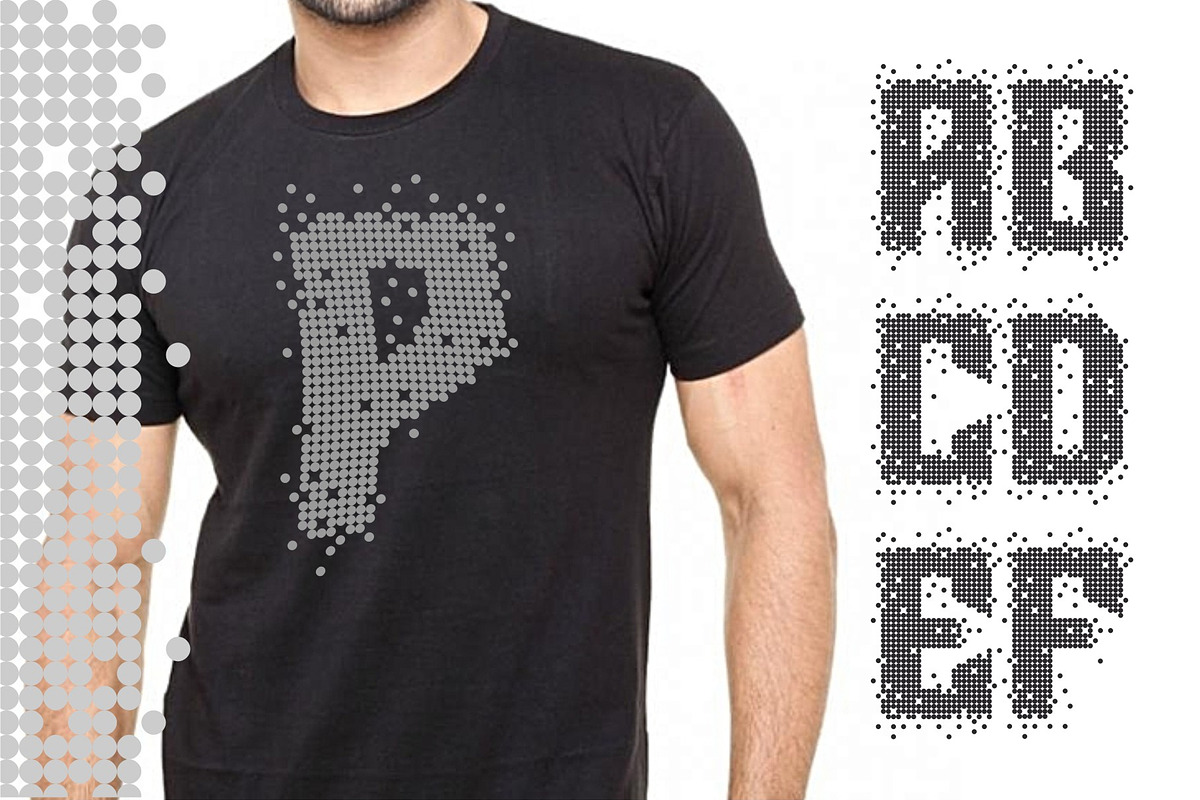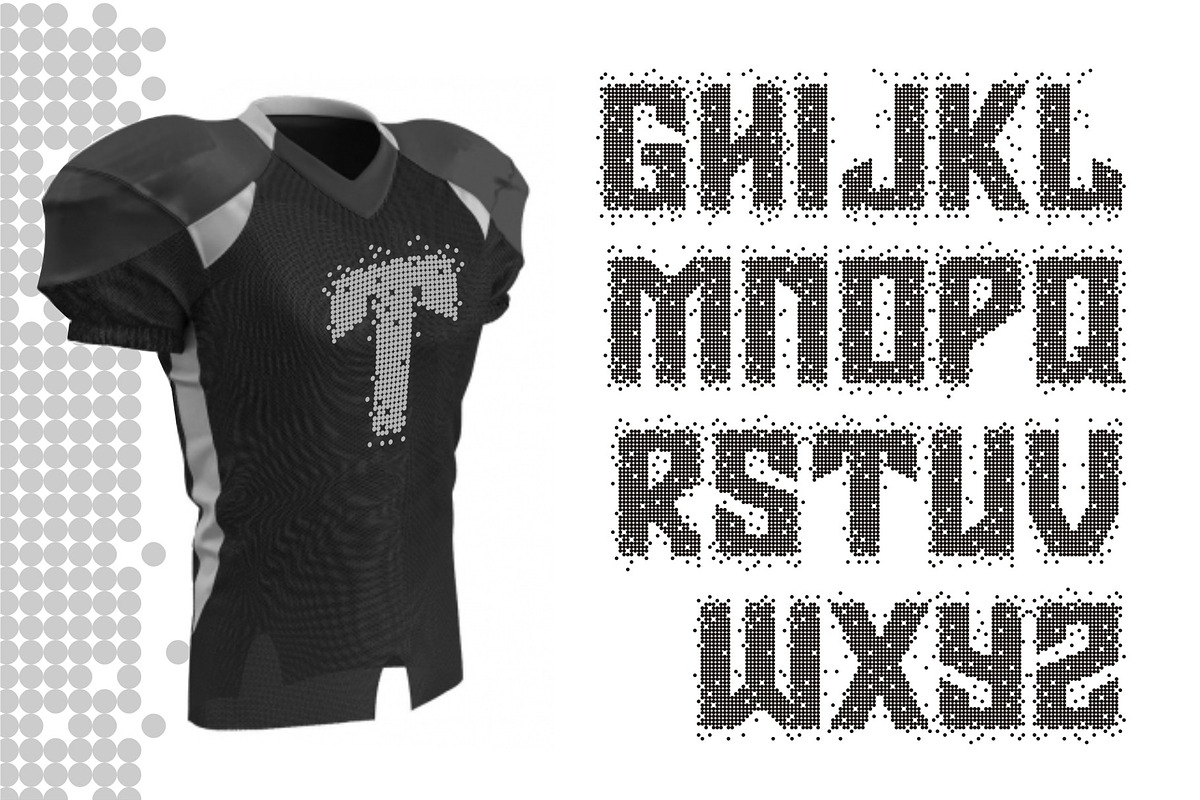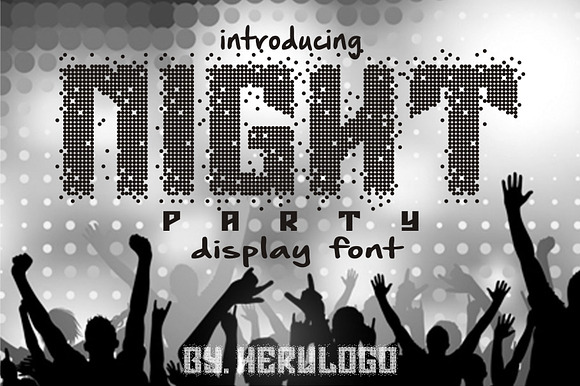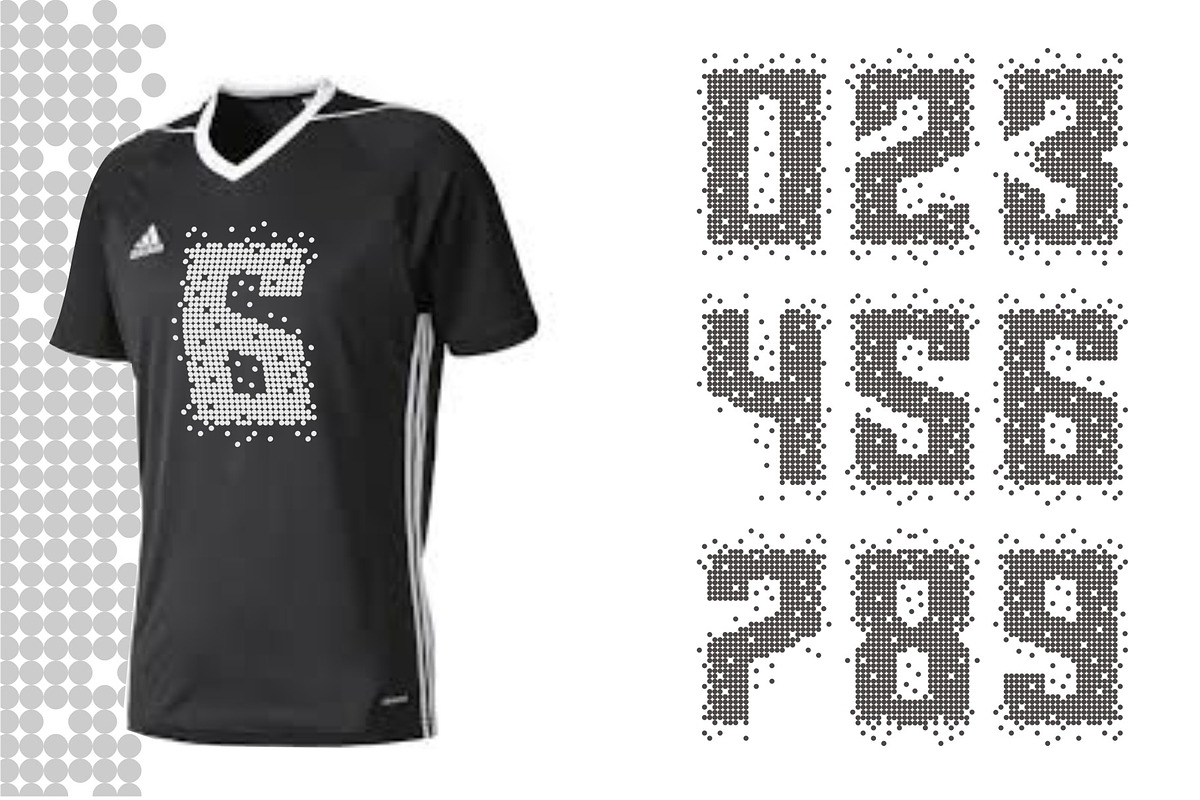
Night Party Display Font
unique font, very good for logo letters. t-shirt design and flyer
Why Night Party Display Font is worth a look
Night Party Display Font by herulogo fits naturally into Branding, posters, packaging, typography.